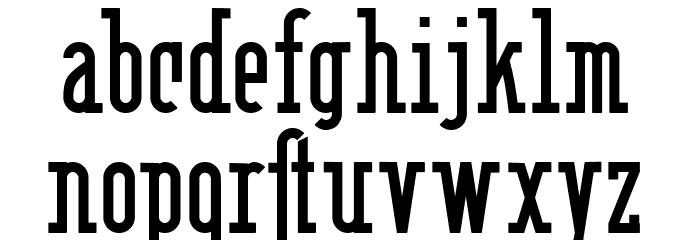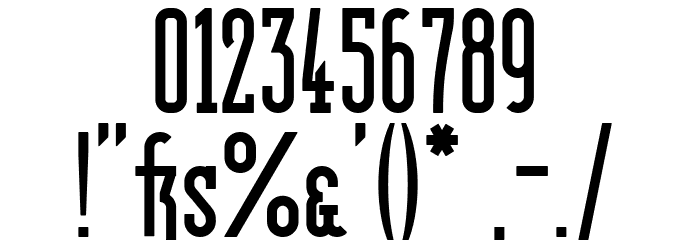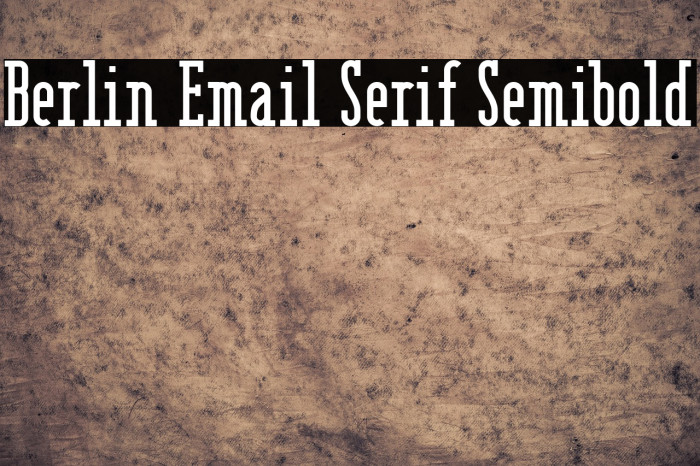
Berlin Email Serif Semibold Font
This font exhibits a robust and bold serif style with a strong presence. The uppercase letters are tall and commanding, while the lowercase letters maintain a consistent and readable form. The numerals are clear and distinct, ensuring legibility. Special characters are well-defined, adding versatility to the font. The overall design is reminiscent of vintage typefaces, yet it maintains a modern appeal. The serifs are pronounced, contributing to the font's classic and authoritative look. This font is suitable for projects that require a strong and impactful typeface.
A bold serif font with a vintage yet modern appeal, featuring strong and clear characters.
- Proposed Projects: Ideal for headlines, posters, branding, and any design requiring a bold and authoritative typeface.
- Overall Style: Vintage